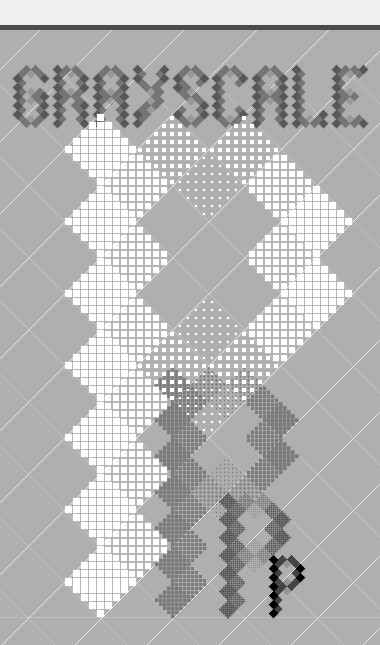
Great effect!
Cool effect, looks like a digital patchwork.
OMG this is astounding. What are they putting in the water apart from fluoride?
can't believe it's not photoshop!
Whoa... I couldn't believe my eyes when I saw it... Then I took the slider from pixel-view to largest view... Really masterful, minimum!
Argyle to the maximum, minimum! Another great effectuation.
Amazing!!
@gf, dj: Effect is all this has.
@intaglio: Nothing useful. ;)
@cayo: :) The sample explains it all.
@SPeg: All patches are one step down from previous, except for the lightest, which is two step down. 3rd and 4th were rendering at the same shade of gray.
@G1: Real argyle is still in the planning stage. Lets see if that can be extracted without obvious pixelization.
this is very beautiful. i could stare at it all day. and gives me a tingly feeling in my belly :)
WOW! that is so cool, it must have taken forever! this is definitely one of my favorites:)
Speechless. It's a masterpiece.
Absolutetly the best in months! congrats
this is amazing love the grayscale